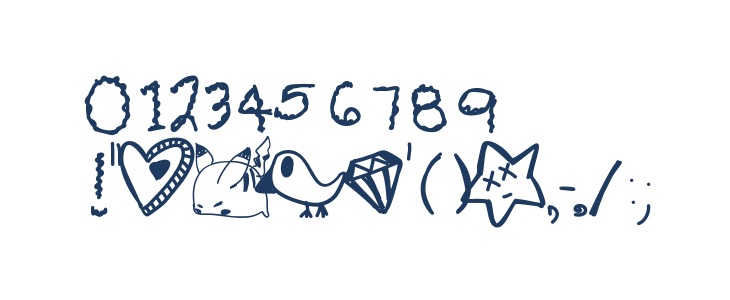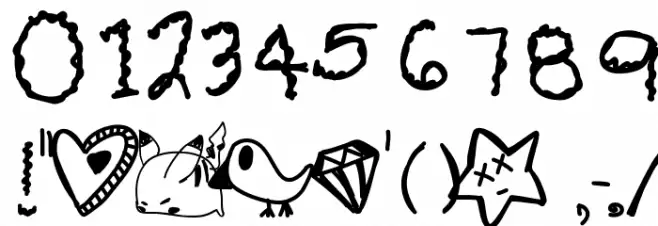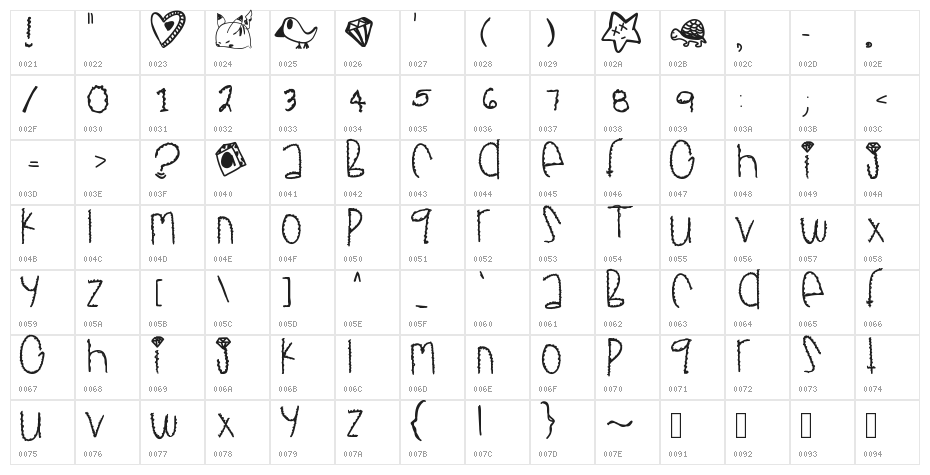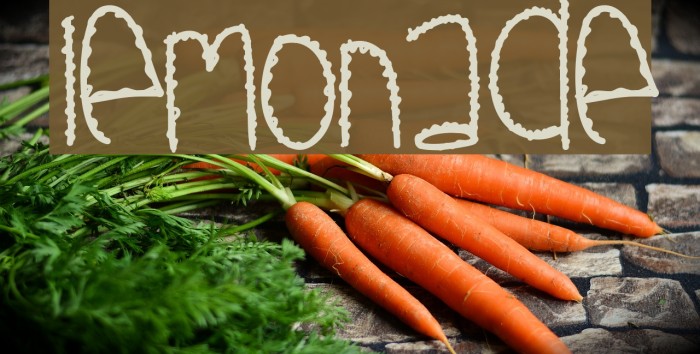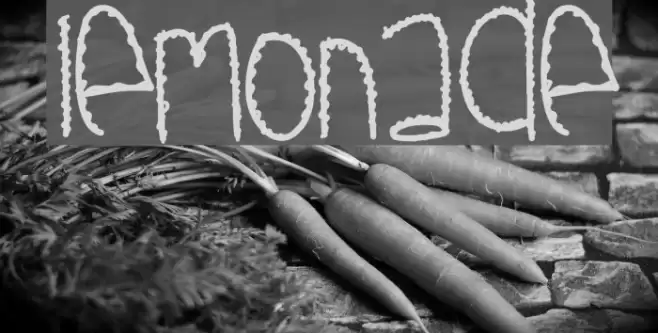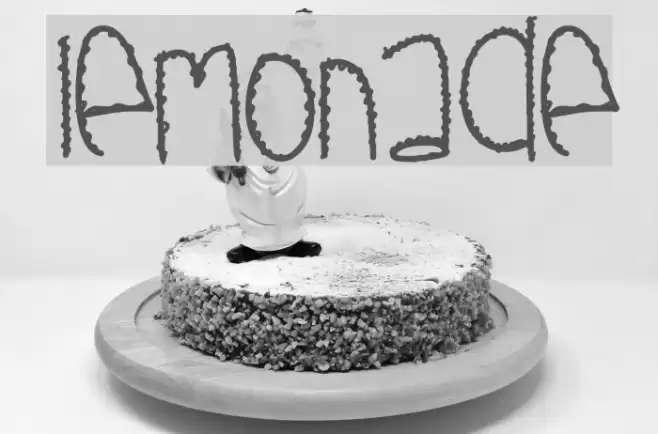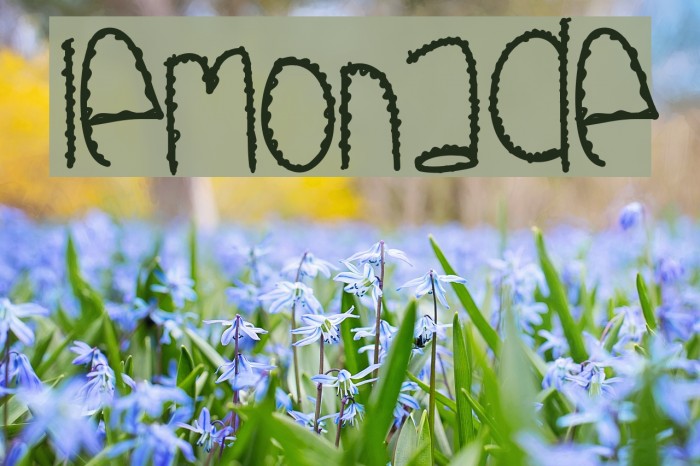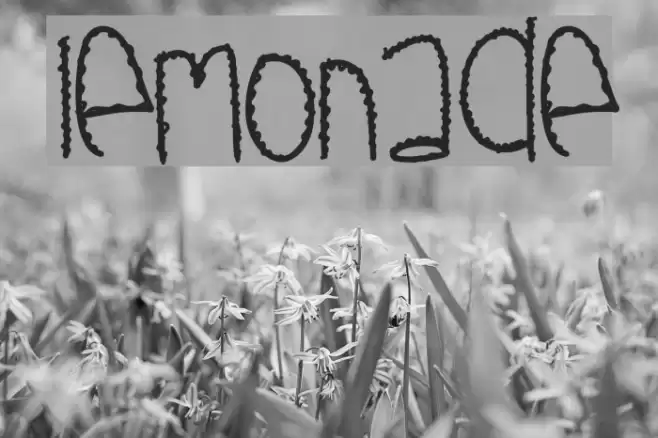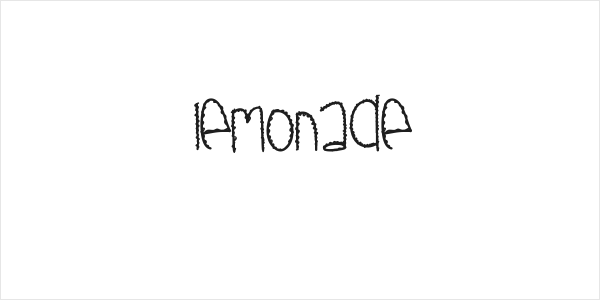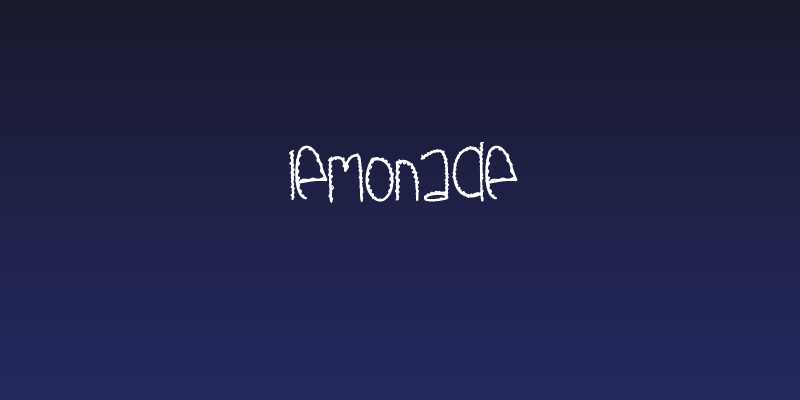
Lemonade Font
Lemonade Description
This playful and whimsical font features a unique, decorative style with a hand-drawn appearance. Each character is adorned with small, irregular details that resemble stitches or beads, giving it a crafty, homemade feel. The letters are slightly uneven, adding to the charm and informal nature of the design. The font includes both uppercase and lowercase letters, numbers, and a selection of quirky special characters, such as a heart, bird, and diamond. The overall look is fun and lighthearted, making it ideal for creative projects that require a touch of personality and flair.
Overall StyleWhimsical
Use CaseHeadlines, Creative projects
Proposed ProjectsIdeal for children's book covers, playful invitations, scrapbooking, and DIY craft projects.